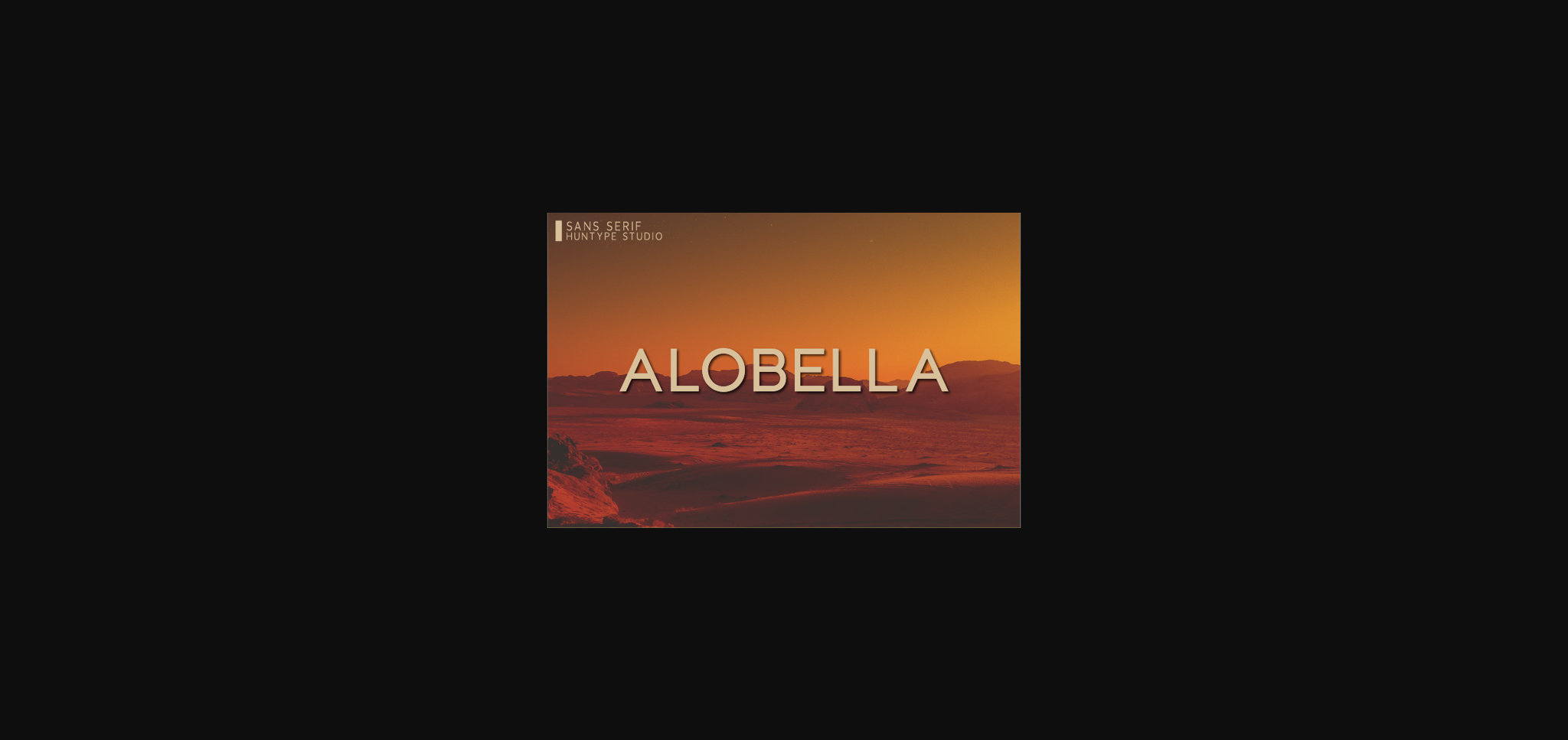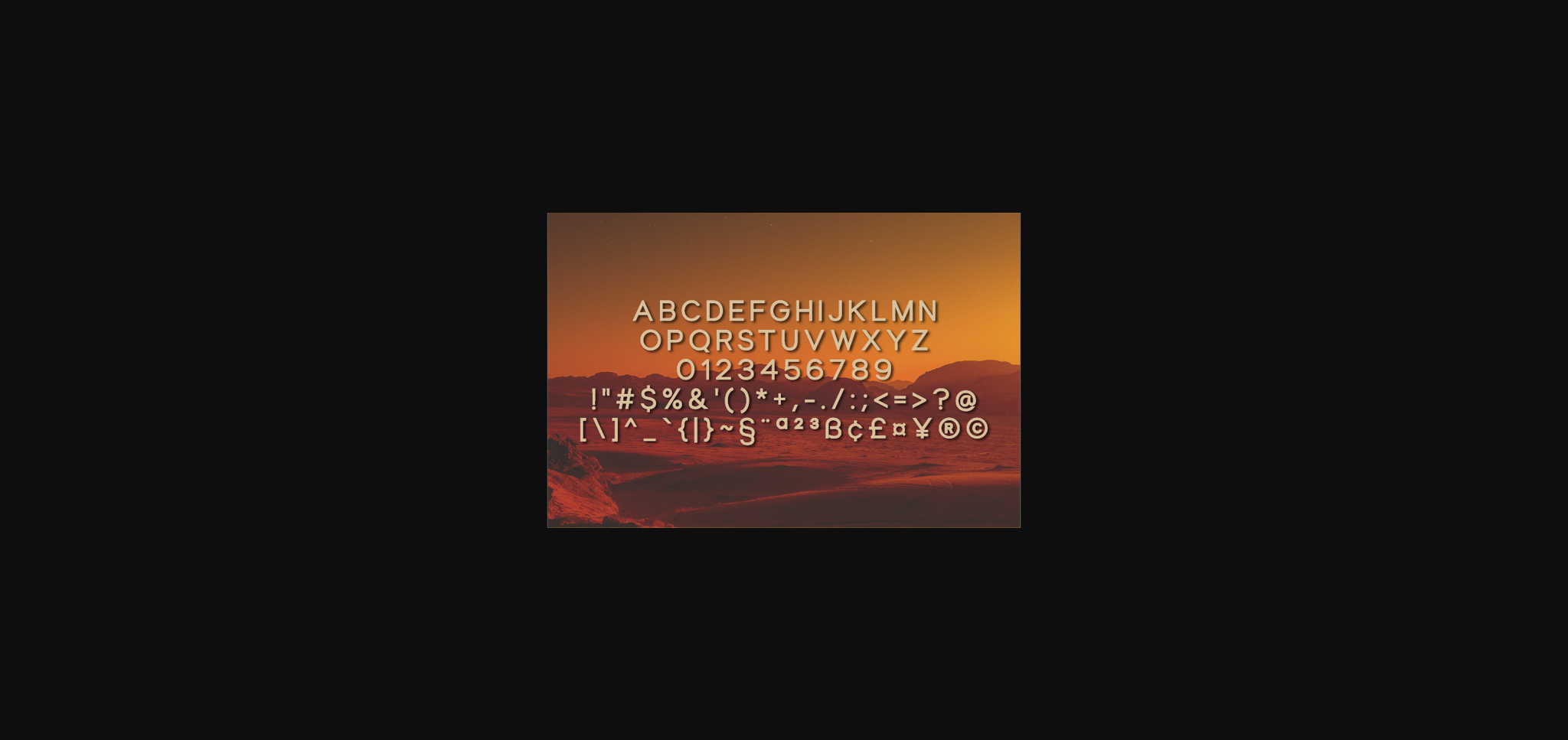
HomeSans Serif FontsAlobella Font Sans Serif Fonts Alobella Font FacebookXPinterestWhatsApp 1 of 5 ... Alobella Font Poster 2... Alobella Font Poster 3... Alobella Font Poster 4... Alobella Font Poster 5... About Alobella Font Alobella is a simple and futuristic sans serif font. It has a clean, thin and smooth vibe and it will be a hit for any design that you want to add it to. DOWNLOAD NOW People also explored Roxeline Font Hockey Goal Font Love Family Font Shink Font Arlen Script Font Emelna Font Uhudscript – Monoline Canvas Font Motion Graphic Font 461 0 TagsAlobella Font Previous articleMalesta FontNext articleDominuos Font LEAVE A REPLY Cancel reply Comment: Please enter your comment! Name:* Please enter your name here Email:* You have entered an incorrect email address! Please enter your email address here Website: Save my name, email, and website in this browser for the next time I comment. Personal Use Free Propaganda Personal Use Free Read more about this font Elsabetha Personal Use Free Read more about this font Santhony Personal Use Free Read more about this font Fibon Personal Use Free Read more about this font BLOG Using Fonts in Digital Marketing: Tips to Strengthen Your Brand Identity In the realm of digital marketing, every visual element plays a crucial role in shaping a brand's identity, and fonts are no exception. The... Where to Buy American Fonts Online in 2024 Transform Your Website: Elevate Your Typography with 7 Best Web Font Generators Free Fonts Risk: Why Free Fonts Can Be Dangerous for Designers